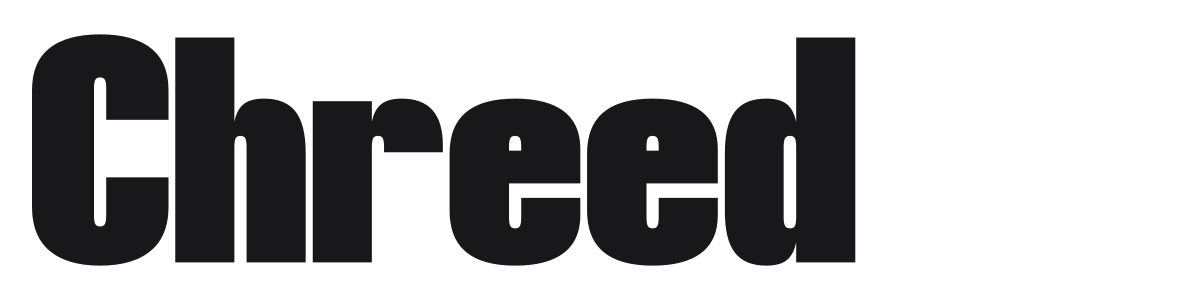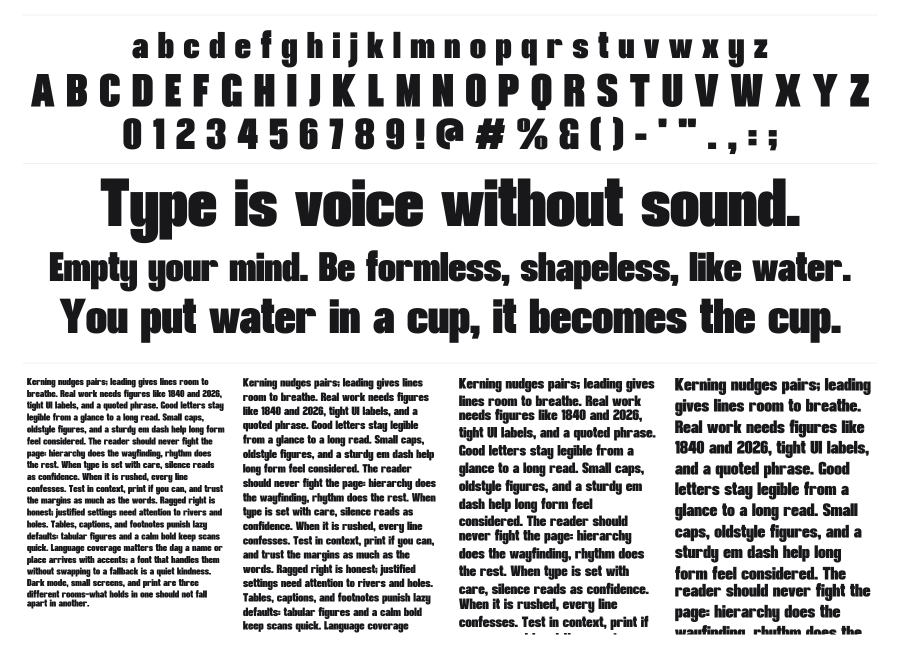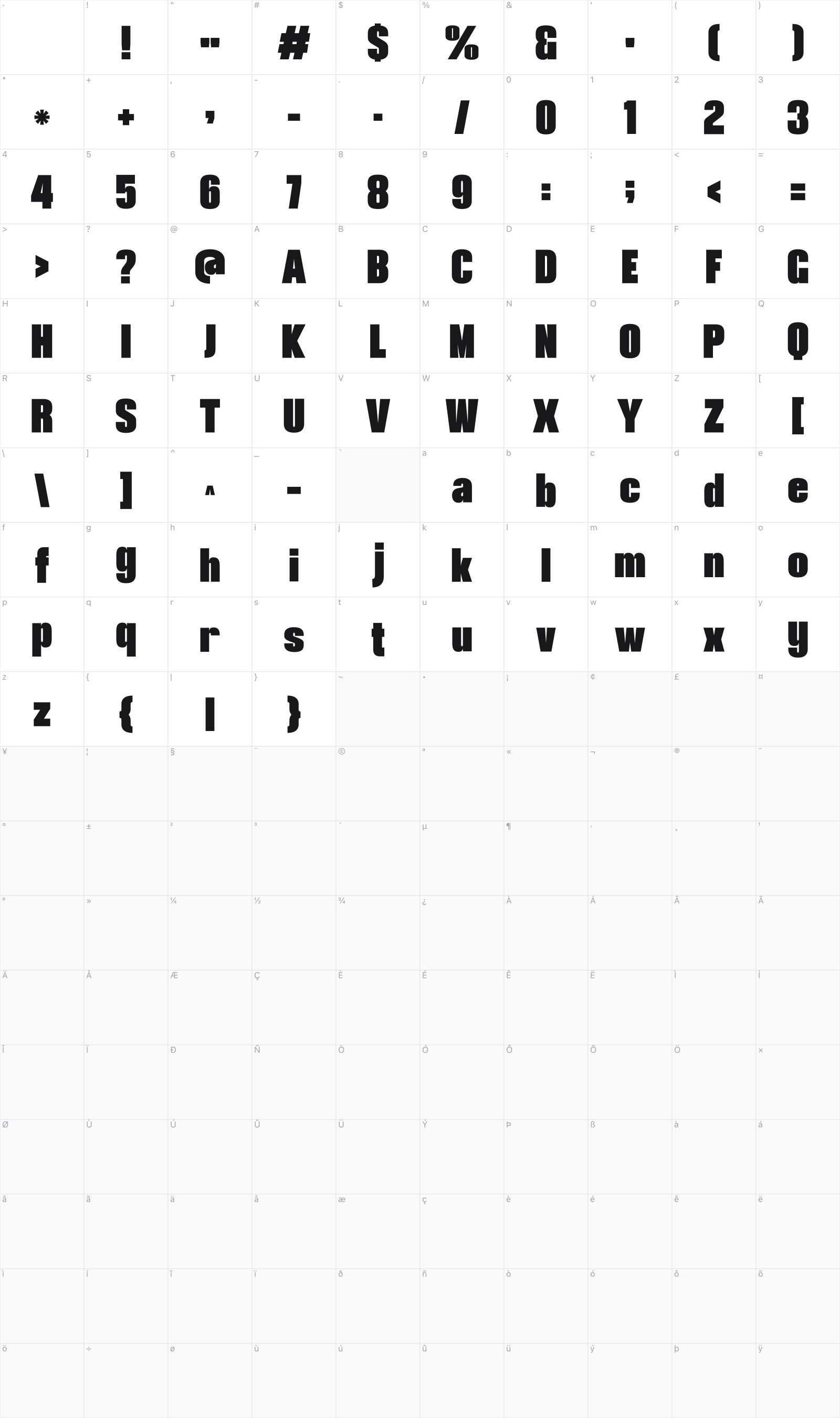
Chreed
Chreed is a variable condensed grotesque sans with a heavyweight presence and ultra-tight proportions. Part of a 36-style family by Glyphminds Studios, it pushes characters into dense vertical columns without sacrificing legibility at display sizes. The clean, flat-terminal construction keeps it versatile across posters, logos, and bold editorial layouts.